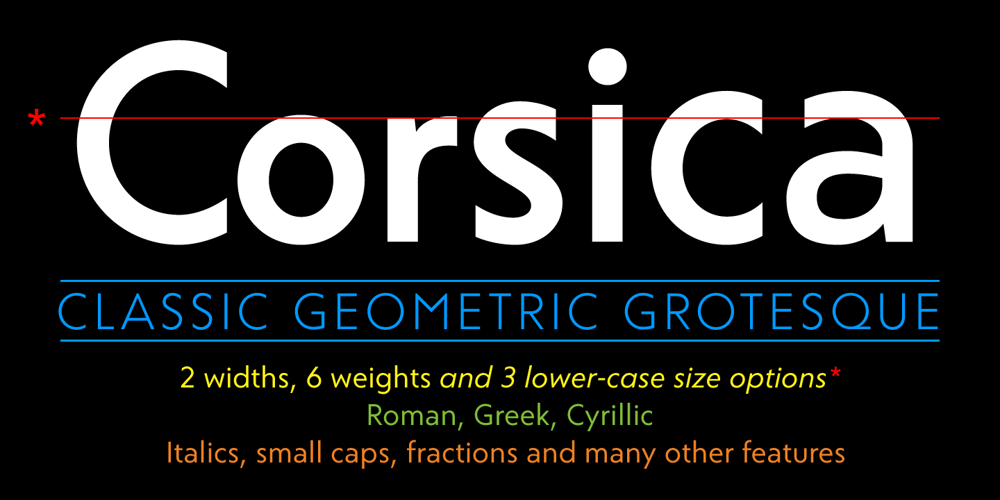
Corsica Font Family was designed by Nicholas Garner and published by AVP. Corsica contains 72 styles and family package options. Corsica is an all-purpose geometric sans-serif typeface of visually uniform stroke thickness. The design seeks to be reminiscent of classic 20th Century grotesques with a crisp modern appearance and opentype features that are now expected. Coverage includes most Roman languages, Greek and basic Cyrillic. Each font contains a standard set of features including fractions, small capitals etc. The family contains six weights, two widths and three lowercase size options, together with an italic variant for each. The are three standard 4-font families for each size variant and a further three corresponding families for Condensed versions. The versatility provided by this extensive family has many useful applications. In particular, the choice of small, medium and large lowercase letter sizes (SX, MX, LX) allows designers to select an appropriate style for suitable impact and legibility in different situations such as headlines, captions, signage, web menus etc. Although each of the three size options will work equally well in most situations, the middle size (Corsica MX) would generally be the preferred choice for lengthy texts.